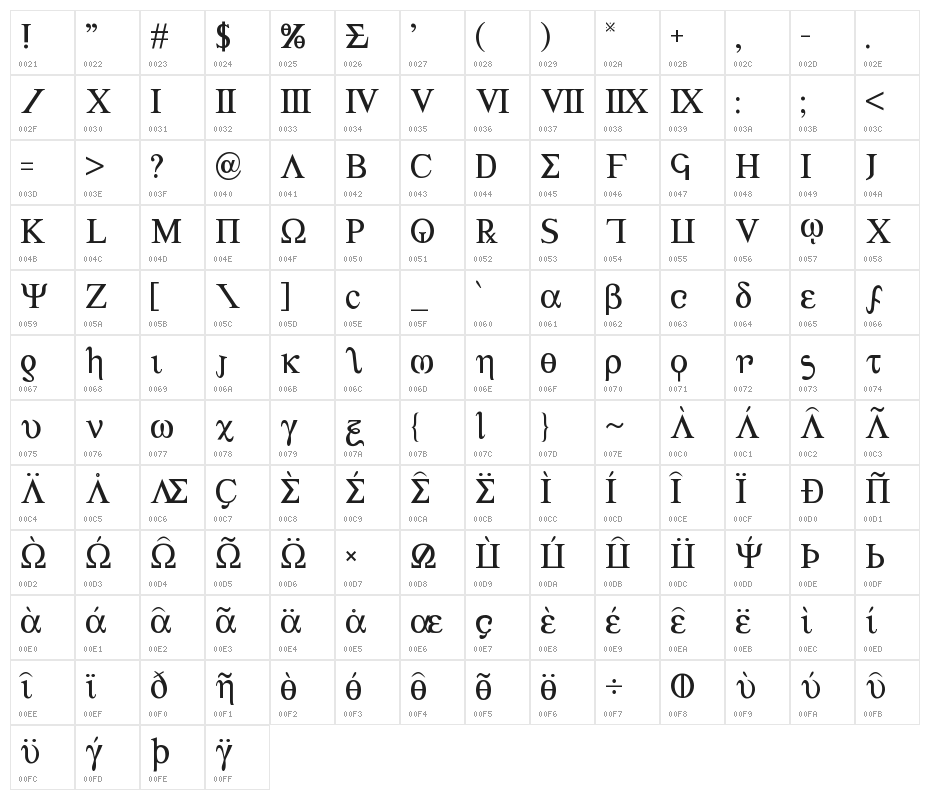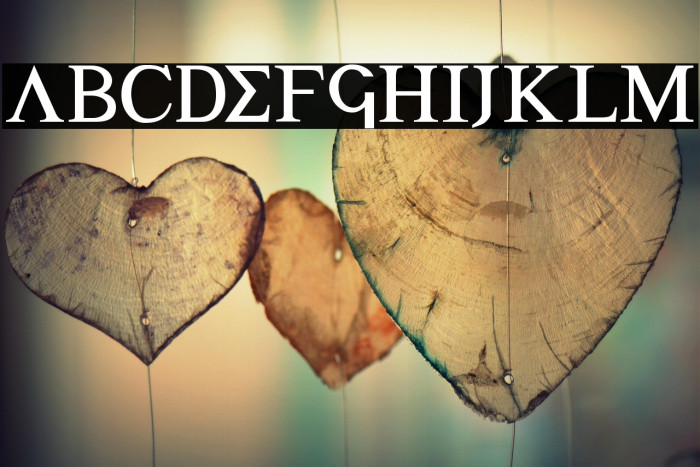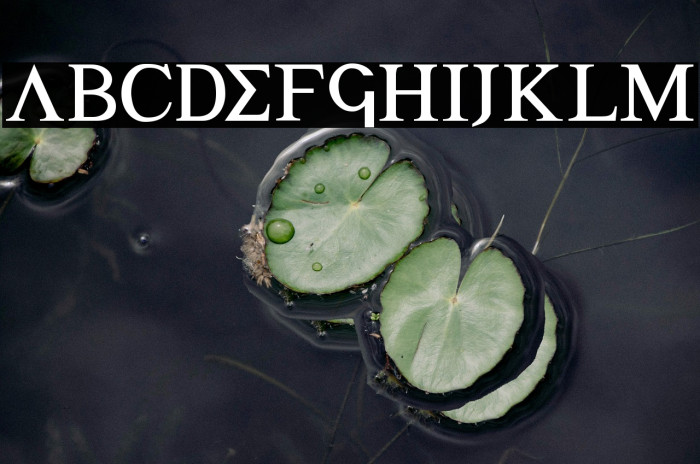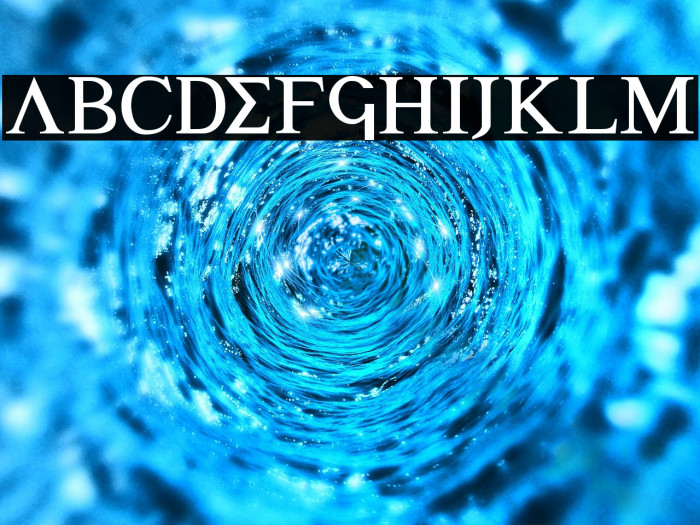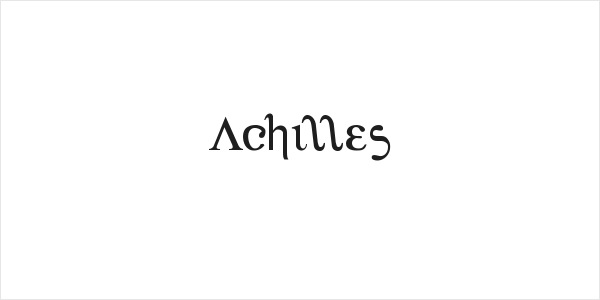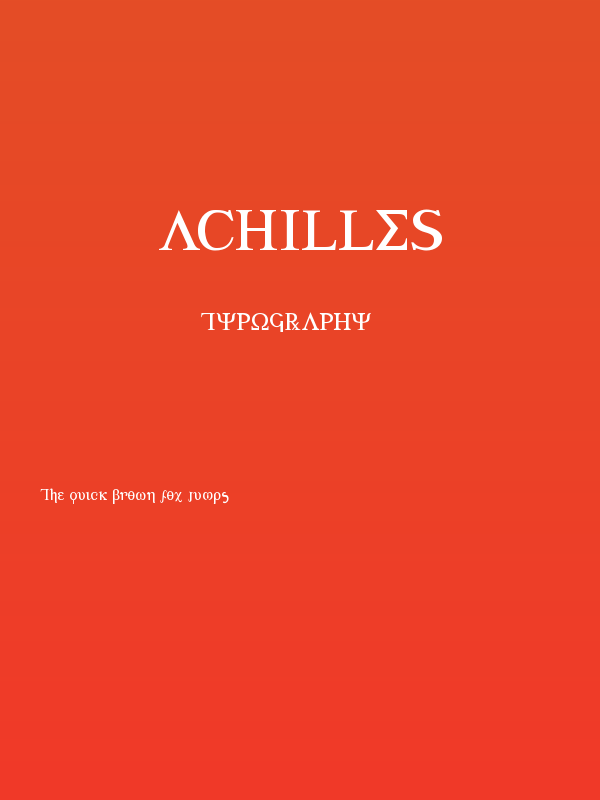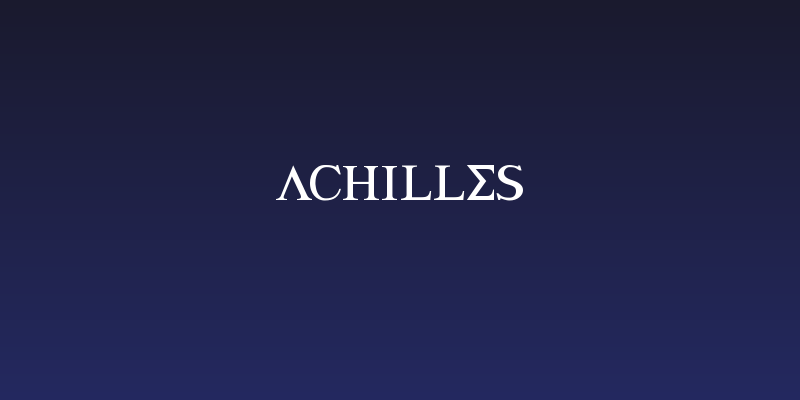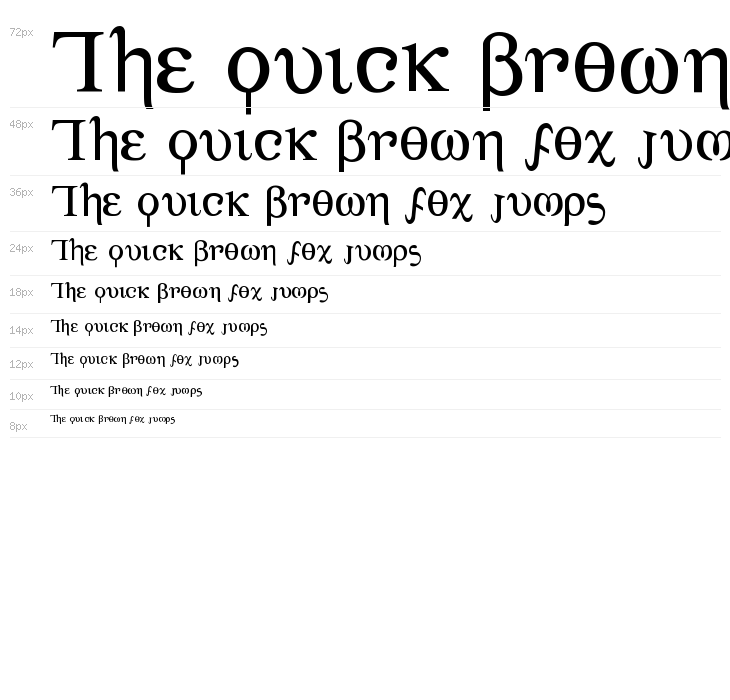
Achilles Font
Achilles Description
This font features a classic serif style with a touch of elegance and sophistication. The uppercase letters are bold and commanding, with distinct serifs that add a traditional feel. The lowercase letters maintain a consistent style, with smooth curves and a balanced weight. The numerals are clear and easy to read, complementing the overall design. Special characters are well-integrated, providing versatility for various uses. The font's design is reminiscent of ancient scripts, giving it a timeless and authoritative presence.
| Use Case | Headlines, Logos, Formal documents |
| Proposed Projects | Ideal for projects that require a touch of classic elegance, such as book covers, historical documents, or formal invitations. |